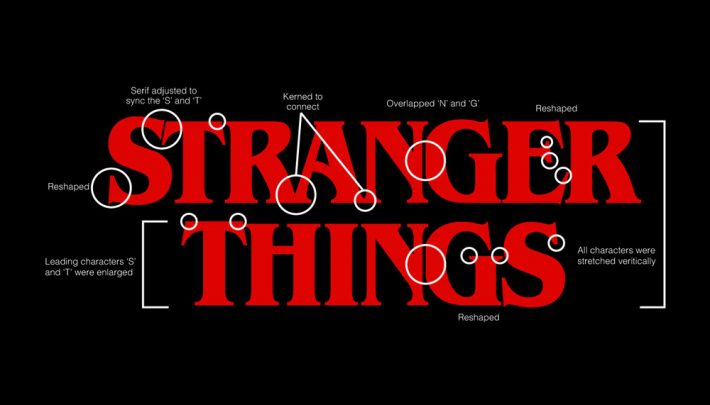
Stranger things Font is an excellent free TrueType typeface that can be used by everyone. You can use this font for developing social media designs, logos, invitation, greeting cards, Facebook and Twitter covers. A perfect specific font has all fonts characteristic small caps, 5 editions of numerals and arrows.
Stranger thing typical Font perfectly combines class and coarseness. This free font can be used for many purposes.
Stranger Things Font